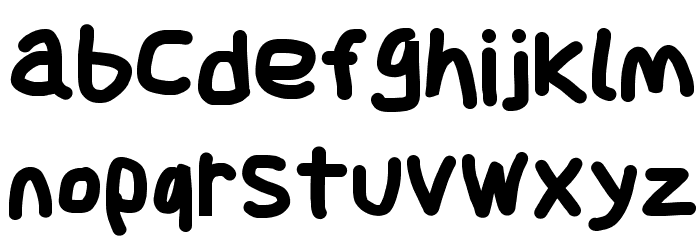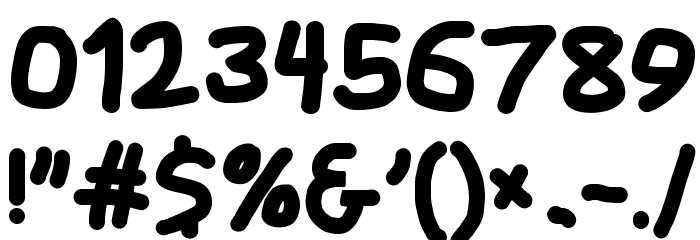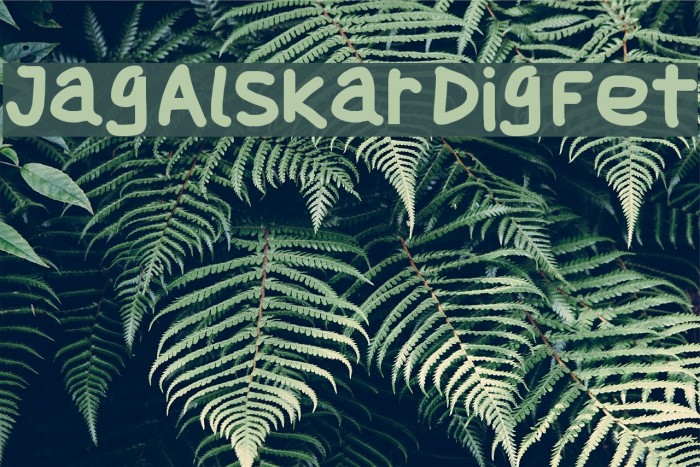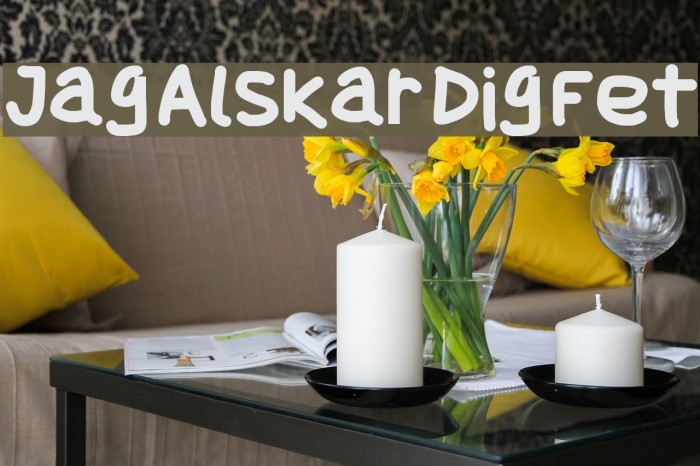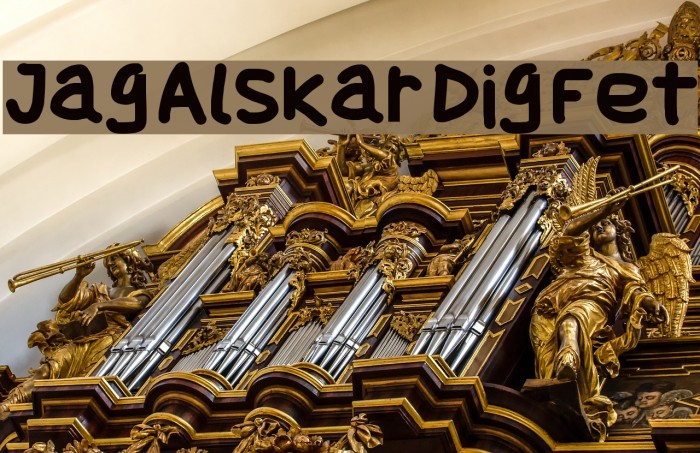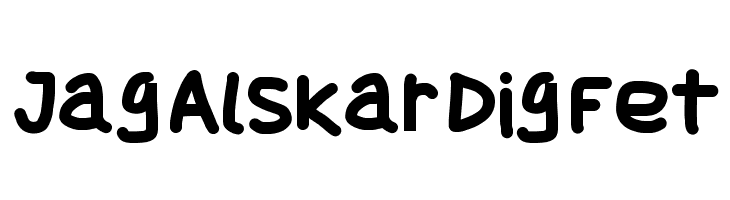
Jag Alskar Dig Fet Font
This playful and bold font features rounded, thick strokes that give it a friendly and approachable appearance. The characters are slightly irregular, adding a hand-drawn feel that enhances its casual and informal style. The uppercase and lowercase letters maintain consistent proportions, while the numerals and special characters are designed to complement the overall aesthetic. The font's boldness ensures high readability, making it suitable for various creative applications. Its unique style is perfect for projects that require a touch of whimsy and personality.
A bold, playful font with rounded, hand-drawn characters.
- Proposed Projects: Ideal for children's books, playful branding, greeting cards, and social media graphics.
- Overall Style: Playful